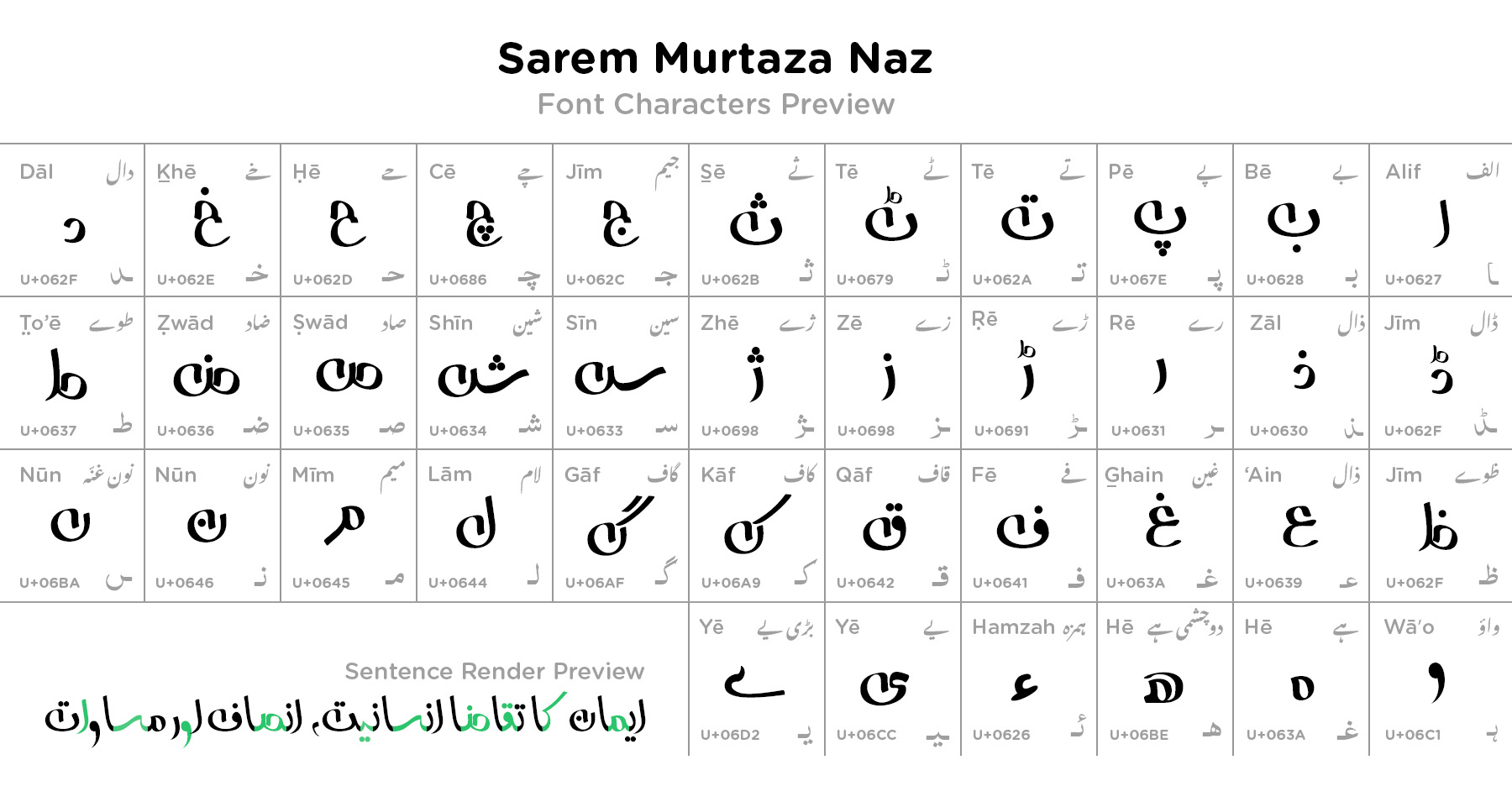
Sarem Murtaza Naz is a bold and wide Sindhi font crafted by renowned Sindhi font designer Sanaullah Mangnejo Sarem, trademarked by Ayesha Graphics. Its bold typeface features unclear curves and corners, adding liveliness flair to the text. With a diverse character set and extensive glyph count, it serves well for scripting multiple languages and meeting various design requirements. The font features decorative flourishes at the beginnings and endings of letters, adding elegance. It includes variations in thickness for a visually interesting effect. The rounded forms of the letter construction create a soft and decorative aesthetic. Some letters appear connected, resembling Arabic scripts. This font may be challenging to read for long texts but is suitable for short snippets, logos, or decorative purposes where a beautiful design is desired over pure readability.
Moreover, it supports different languages such as Arabic, Persian, Latin, Urdu, and more, offering a diverse typographic experience. However, the font is solely offered in regular font-weight, restricting its flexibility. Hence, it’s not the top choice for formal writing, as text might appear cramped in smaller sizes. However, Sarem Murtaza Naz is your perfect choice if you need to add an artistic flair of tradition and a whimsical vibe to your text.